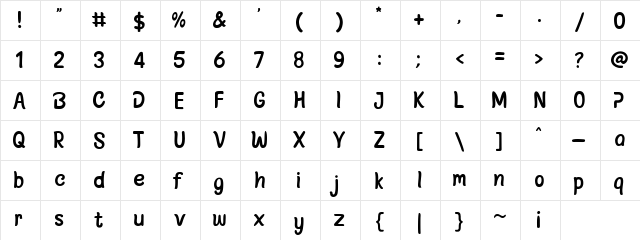
Veilsco Regular
Design Context for Veilsco Typeface
Veilsco takes a measured approach to typography — its balanced proportions and neutral character make it a reliable workhorse for both digital and print work.